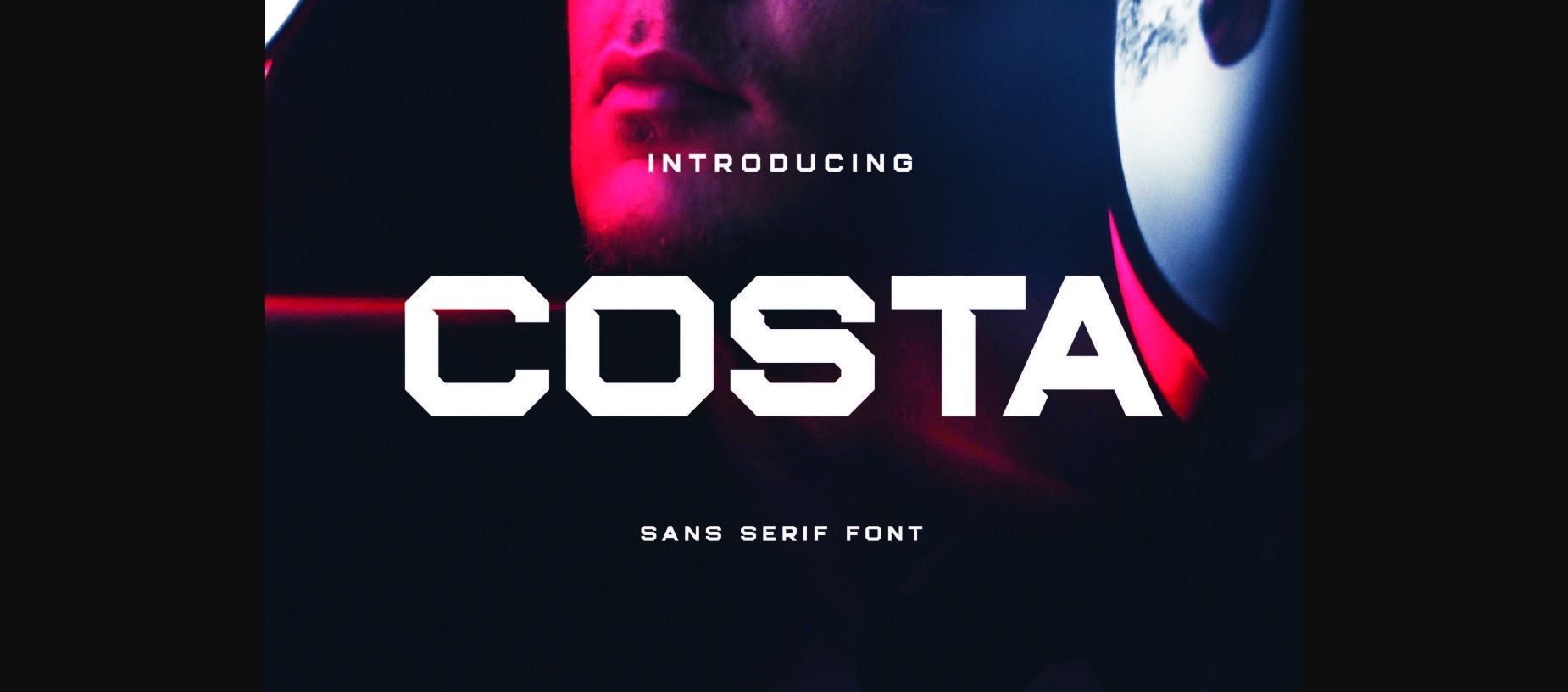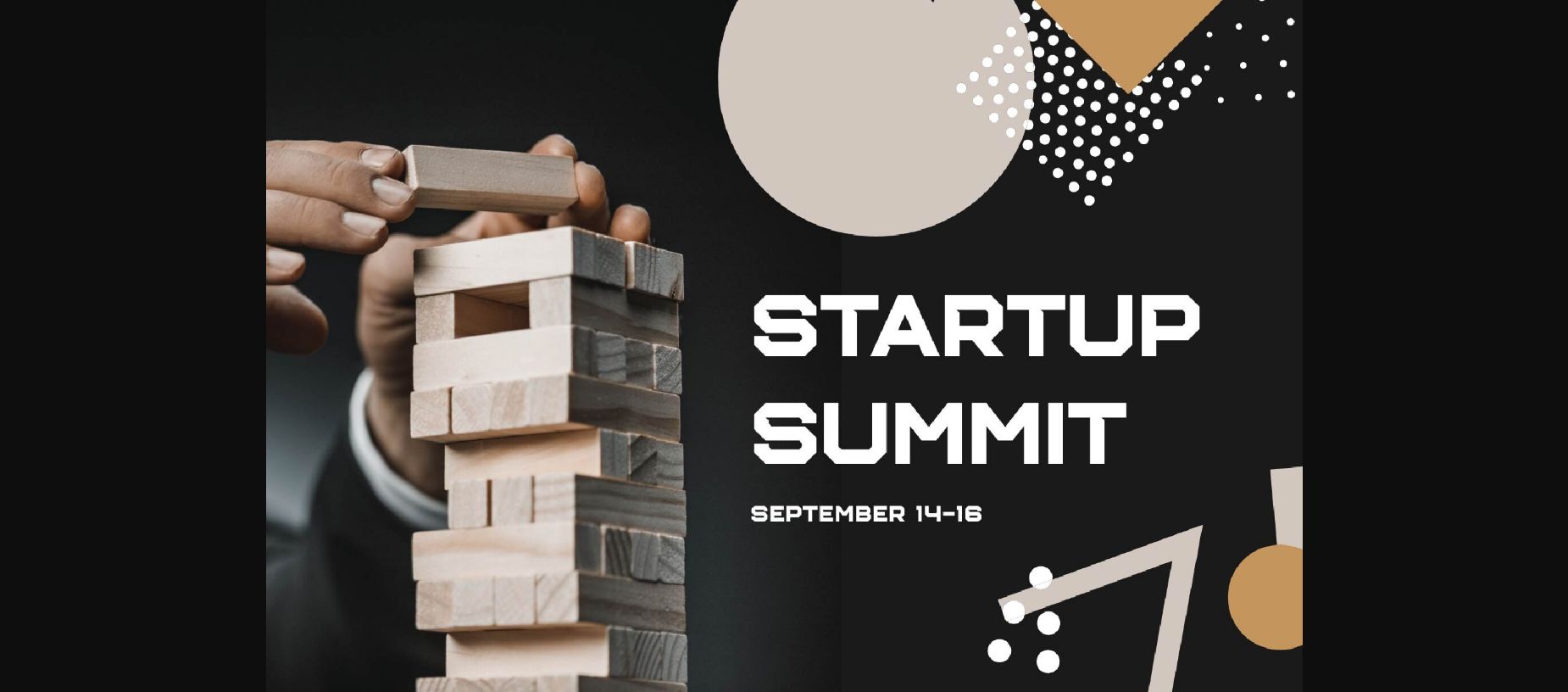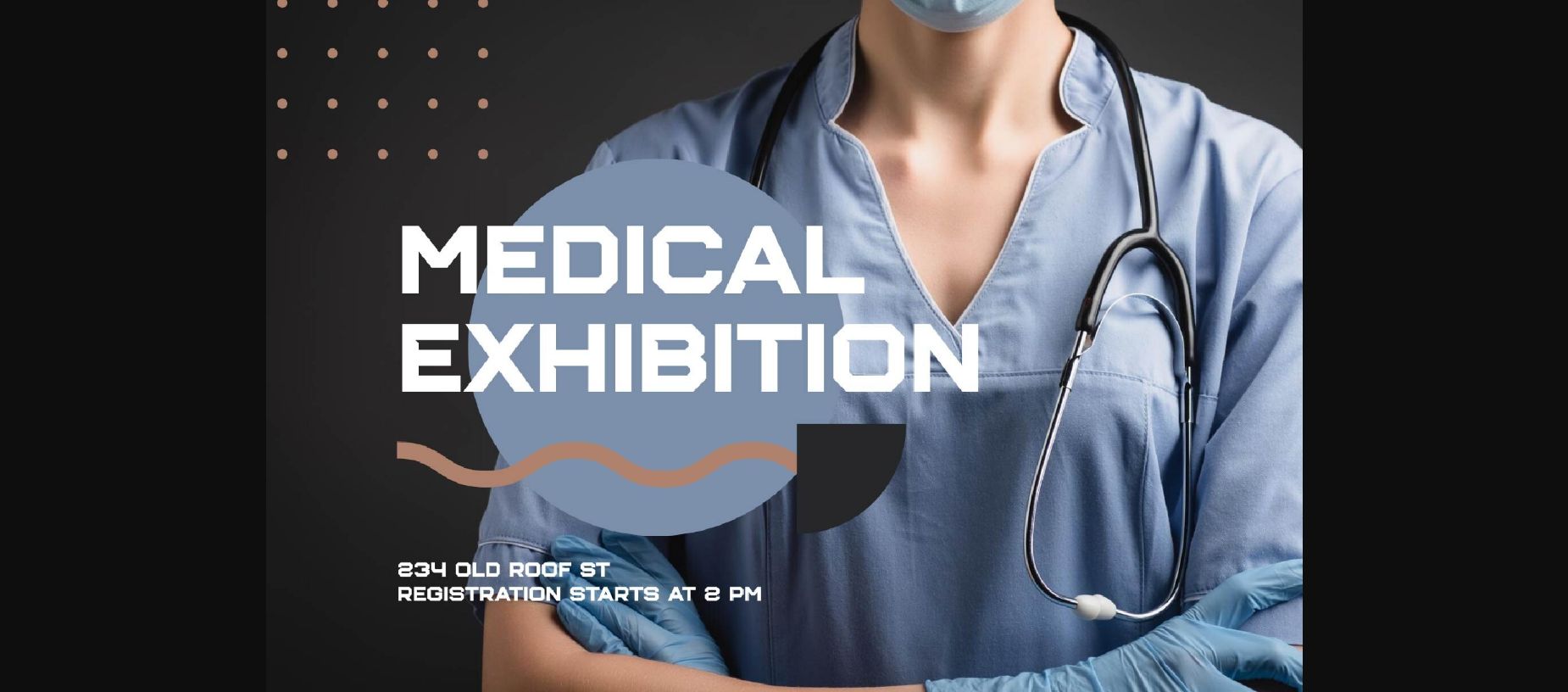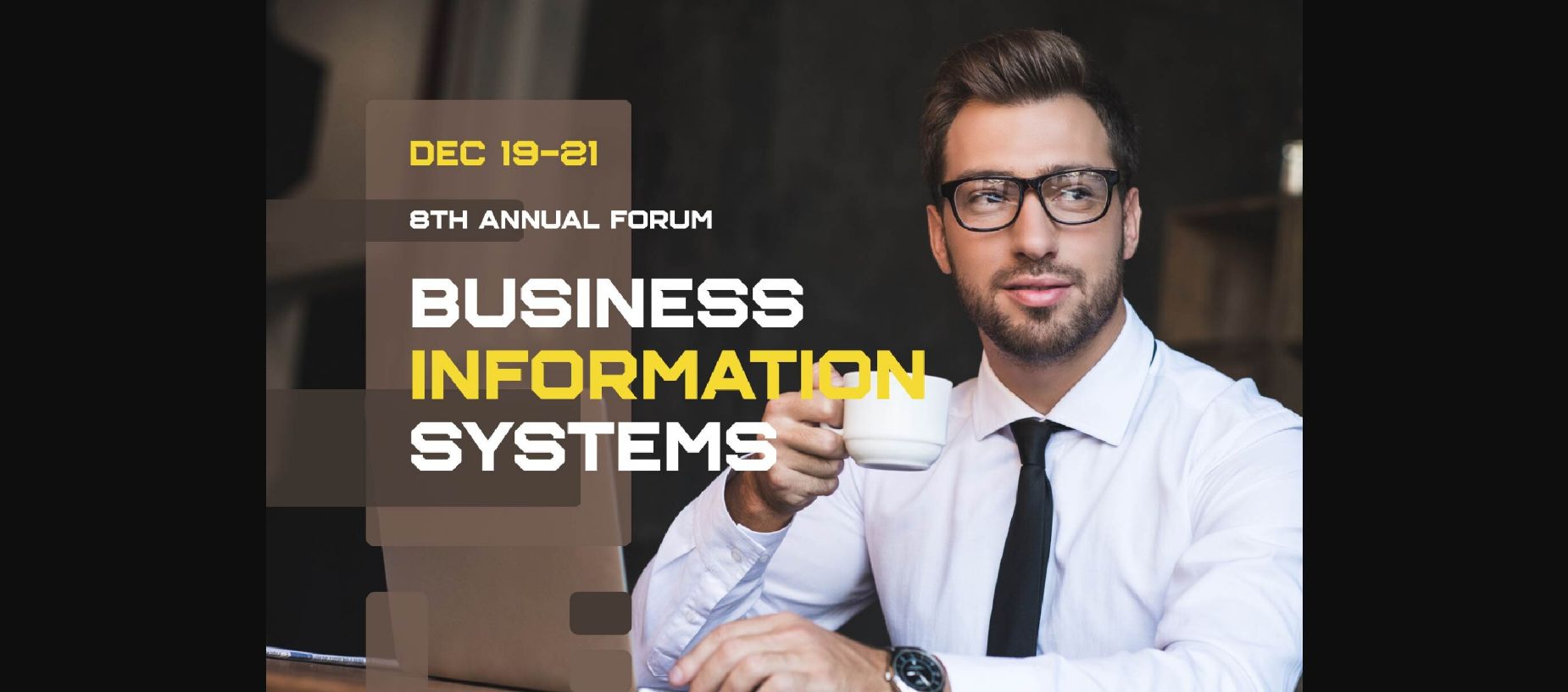
About Costa Font
Costa is a sans serif font inspired by the famous minimalist logo, perfect for the purposes of designing templates, brochures, videos, advertising branding, logos, invitation, layout design, elegant crafting, beauty design and other design projects.